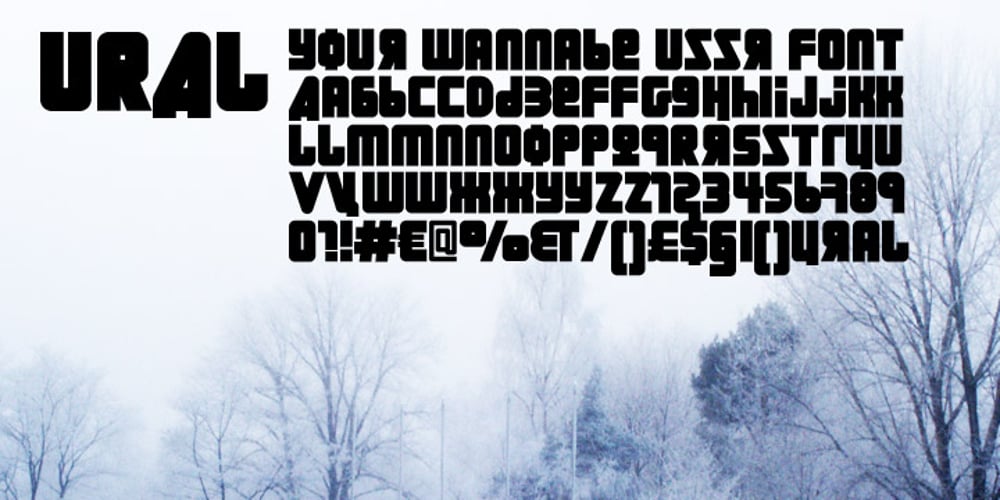
URAL Font Family was designed by Emil Karl Bertell and published by Fenotype. URAL contains 1 styles and family package options. On a clear day you can see all the way to URAL from a high place in Helsinki. There your eyes will meet strange permafrost letters.